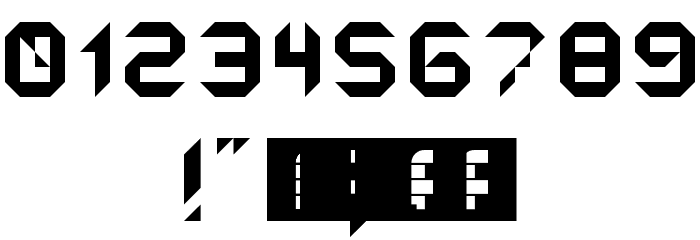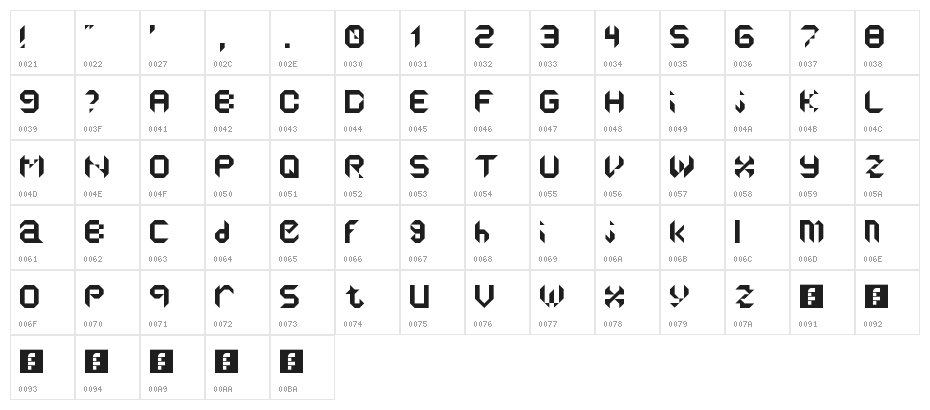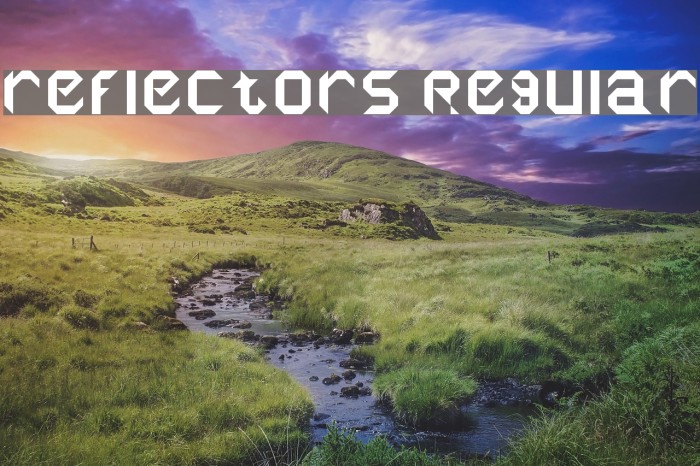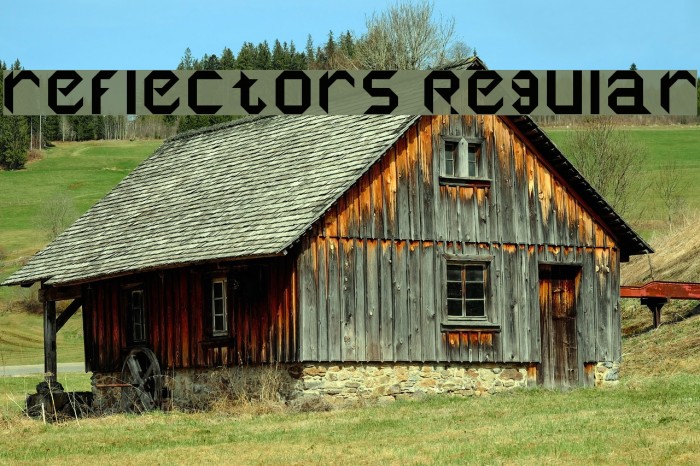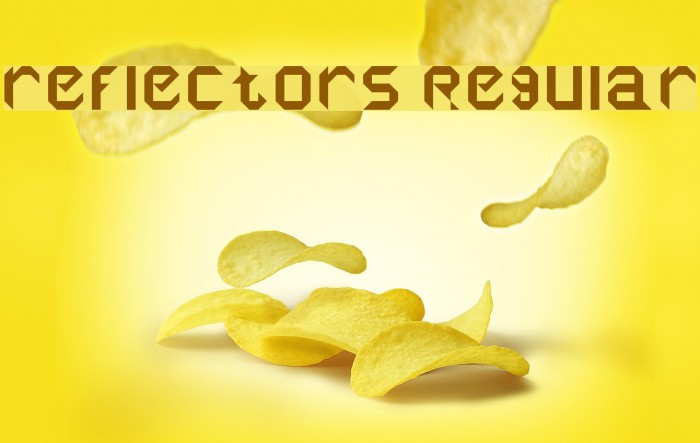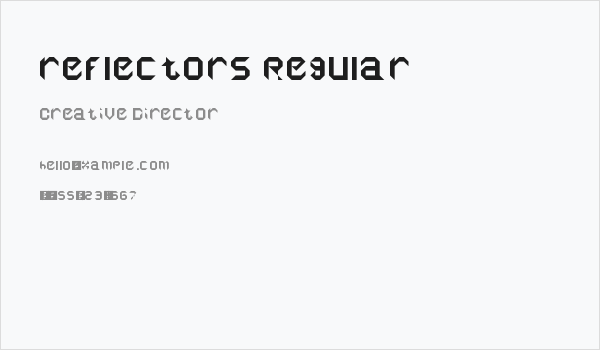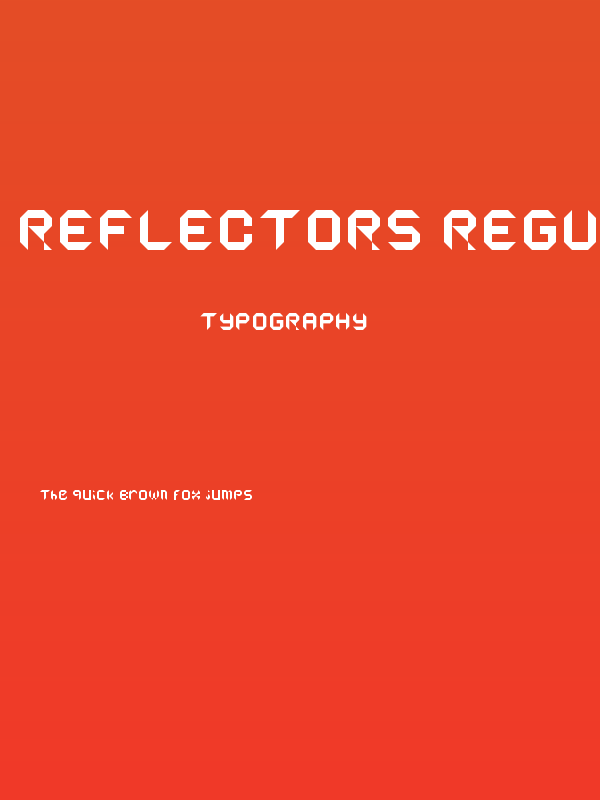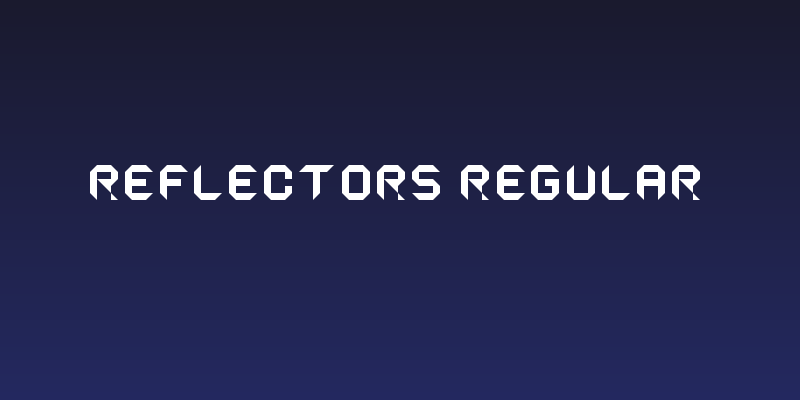
reflectors Regular Font
reflectors Regular Description
This font features a bold, geometric design with a futuristic and angular aesthetic. Each character is constructed with sharp edges and distinct cutouts, creating a sense of movement and modernity. The uppercase and lowercase letters maintain a consistent style, while the numerals and special characters complement the overall design. The font's unique structure makes it stand out, ideal for projects that require a strong visual impact. Its boldness and distinctiveness make it suitable for attention-grabbing headlines or logos.
| Proposed Projects | Ideal for sci-fi themed posters, modern branding, tech-related logos, and innovative product packaging. |